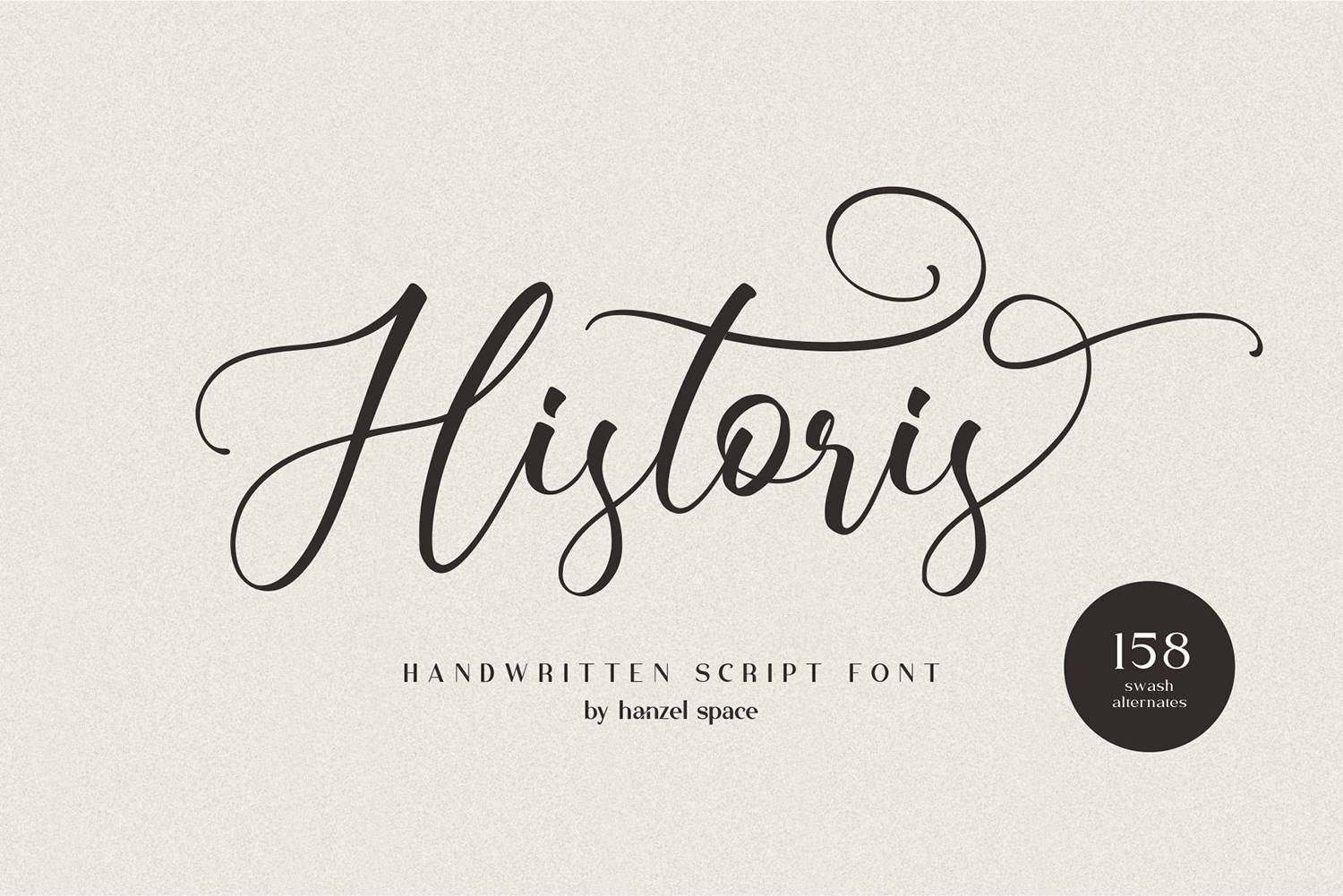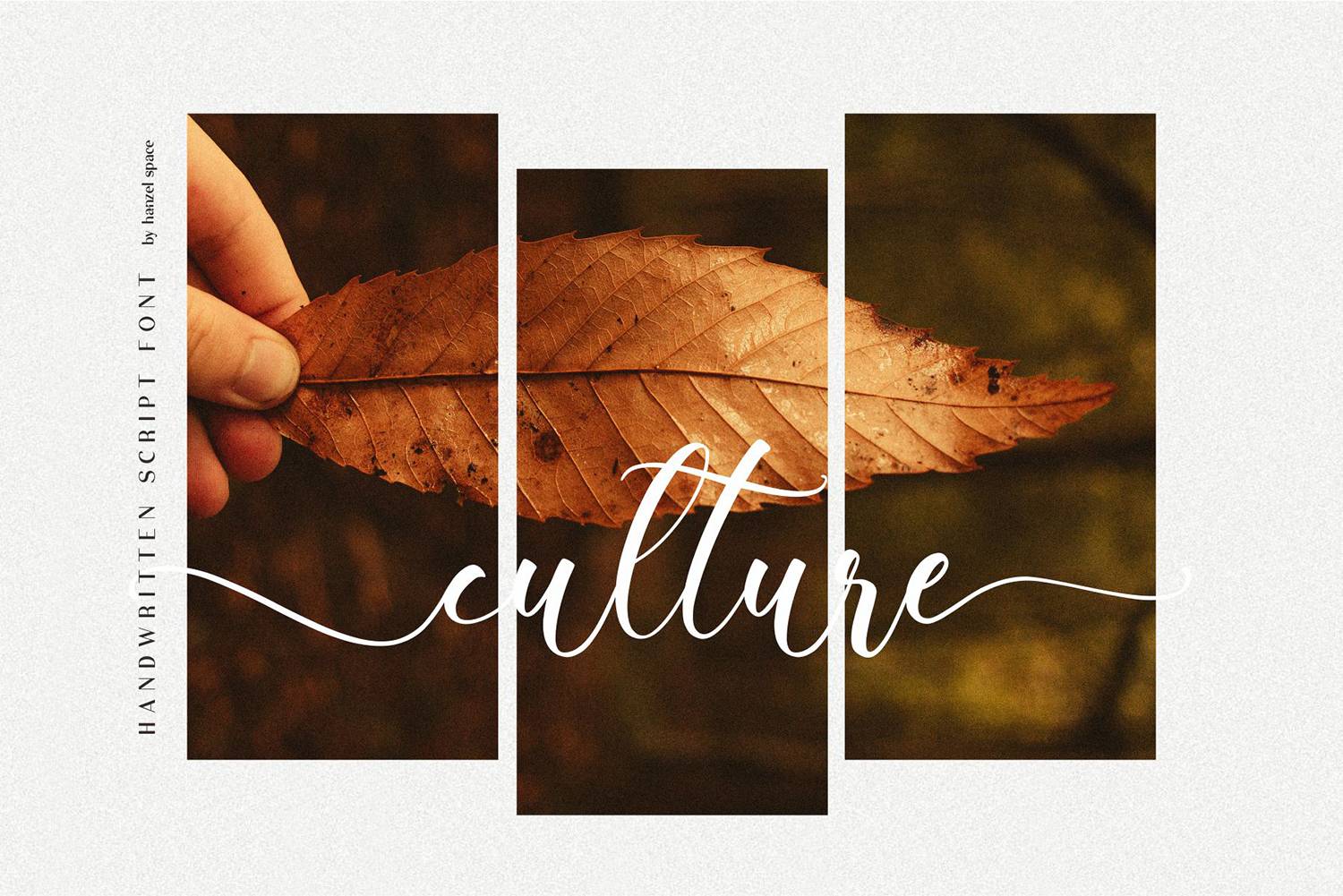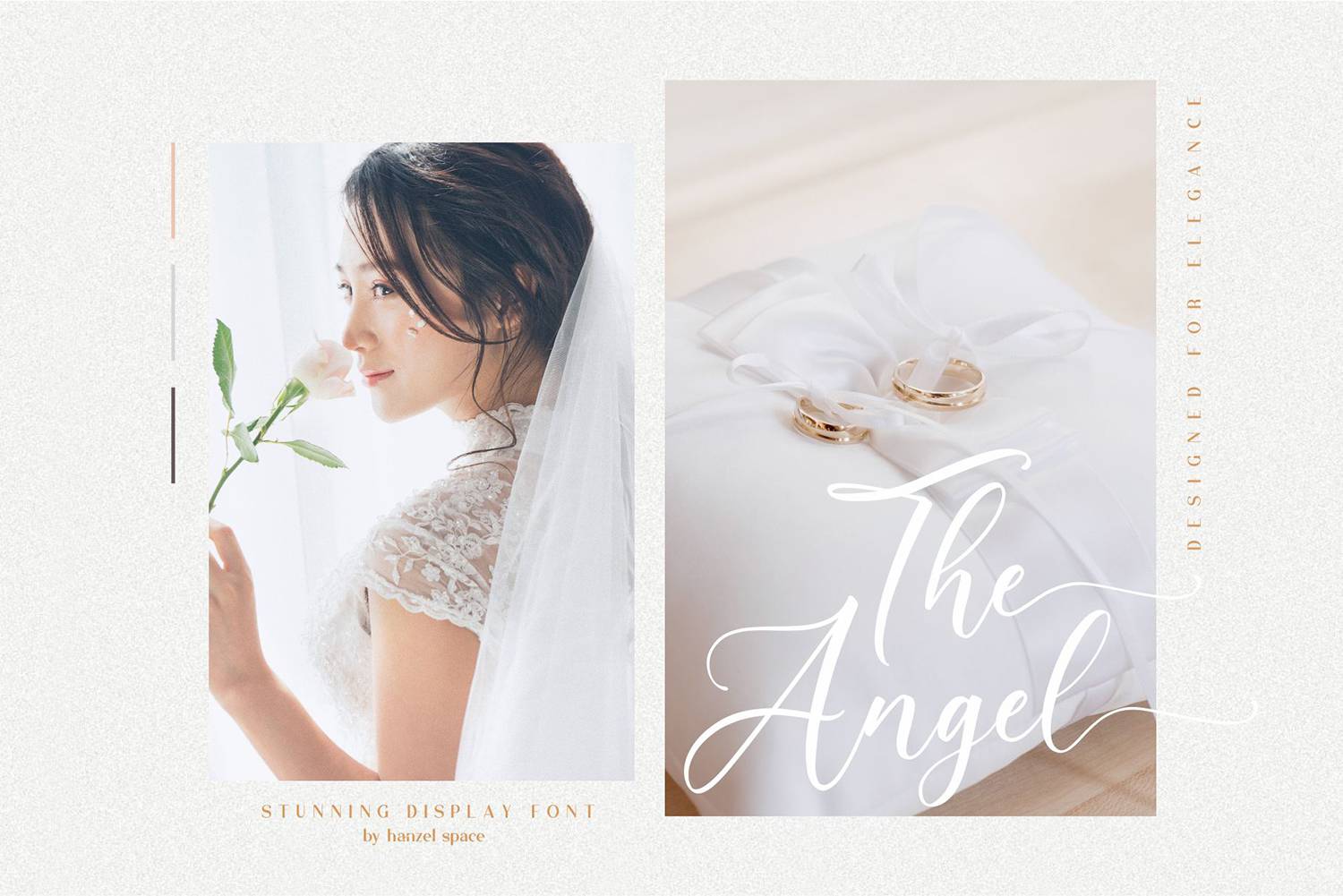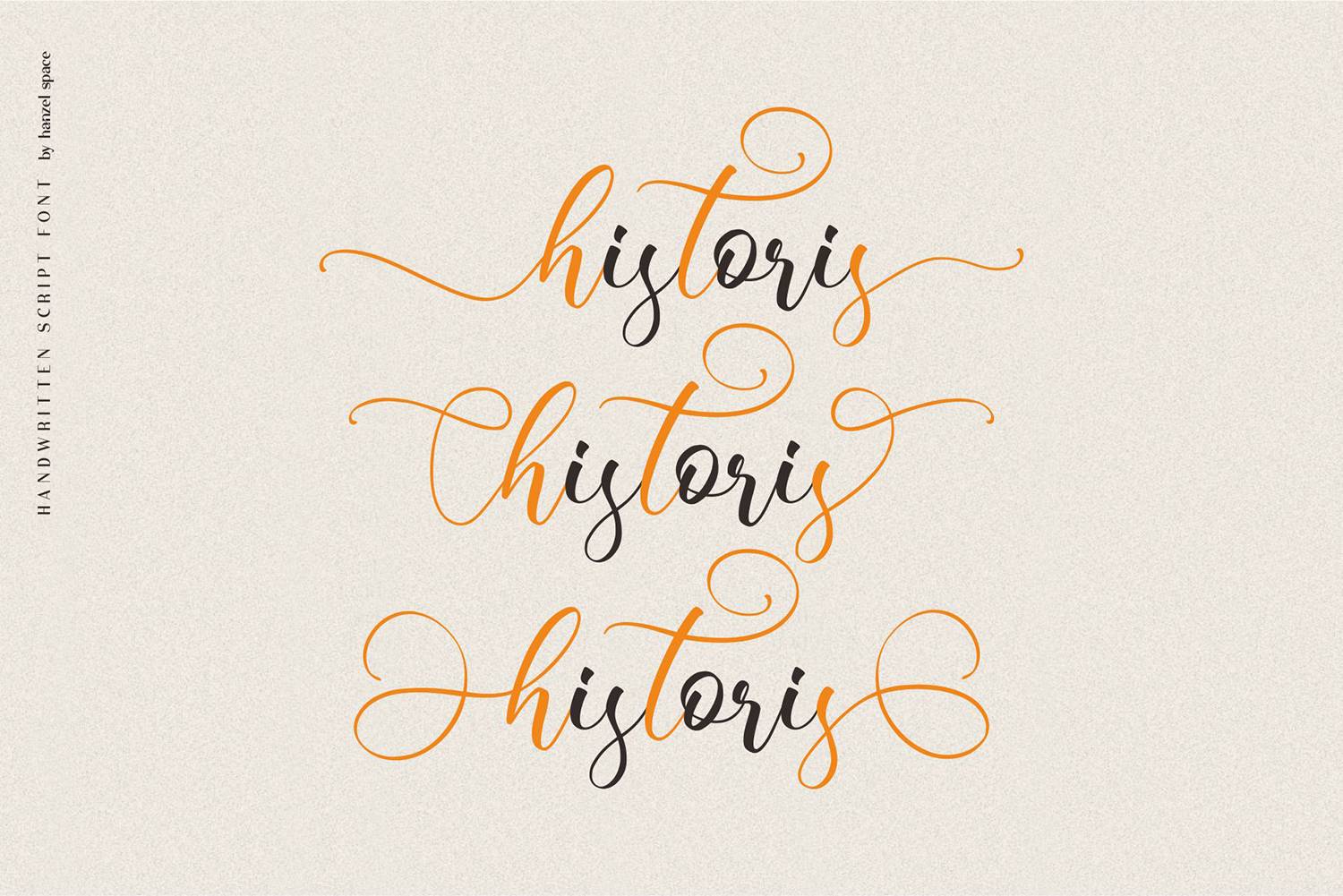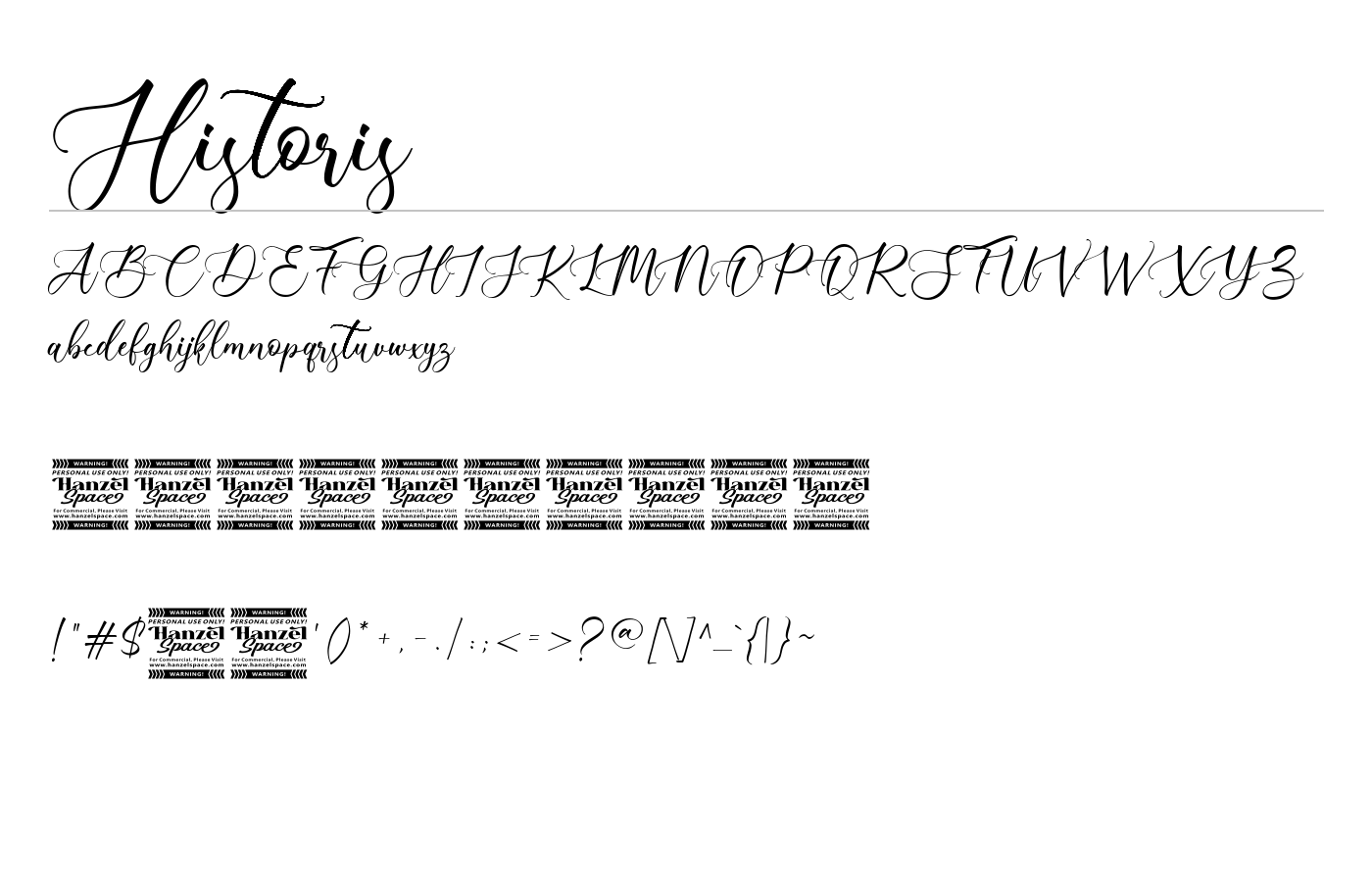
Historis is an elegant script font featuring delicate, flowing strokes that mimic graceful calligraphy with a refined, modern touch. Its slender, slightly varied line weight and stylish swashes make it perfect for luxury branding, wedding invitations, and sophisticated editorial design where a classy and romantic feel is desired. This font shines in headlines and decorative uses, adding a timeless and artistic flair to any project.
Historis Font
About Historis Font
| Font family | Historis Font |
| Designer | Hanief Farandi |